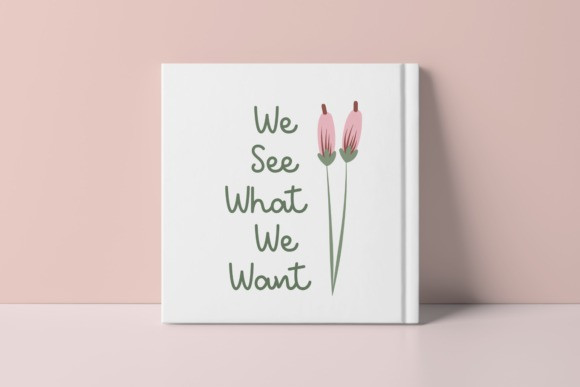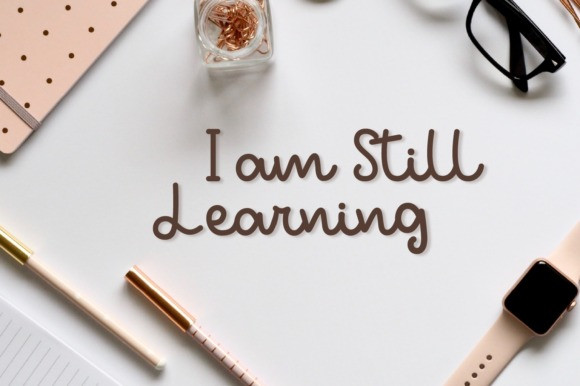
Brownies Script Font
Brownies is a gorgeous script font. It features a calligraphy style, decorative characters, and a dancing baseline! Take your designs to the next level with this amazing font.
This font is PUA encoded which means you can access all of the cute glyphs and swashes with ease! It also features a wealth of special features including alternate glyphs and ligatures.